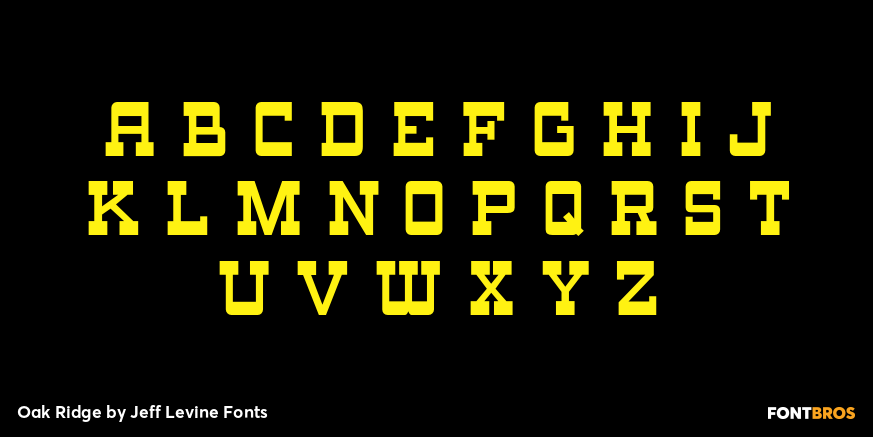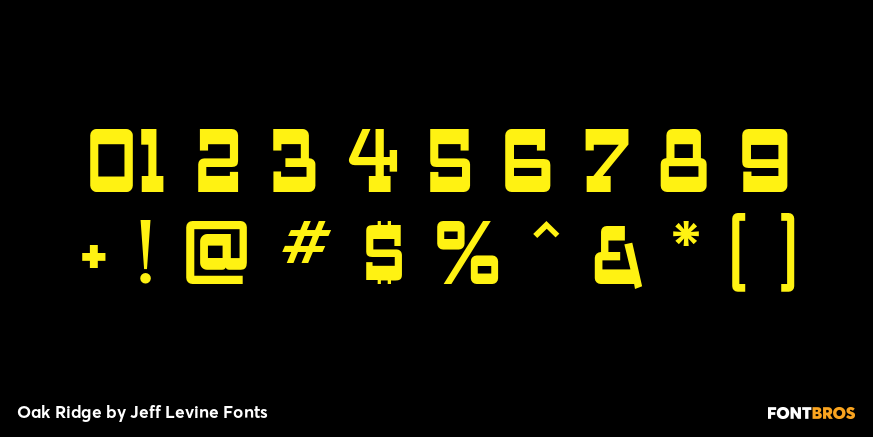
Oak Ridge
Oak Ridge JNL gives a Westernized treatment to Flivver JNL; which in turn is a serif derivative of Two Reeler JNL. Although all three fonts come from the same root source – inter-title cards from an old Charlie Chaplin movie, they each take on a personality of their own.